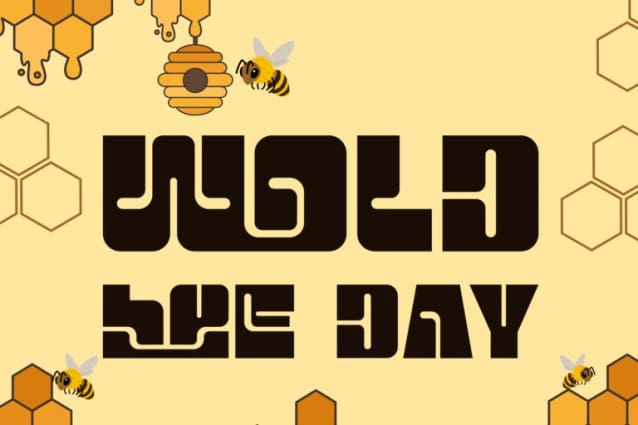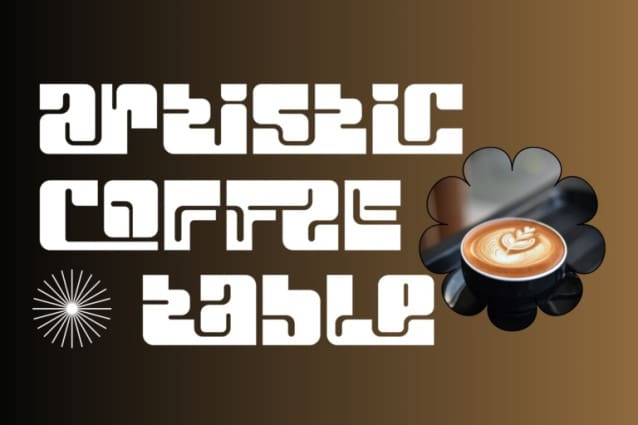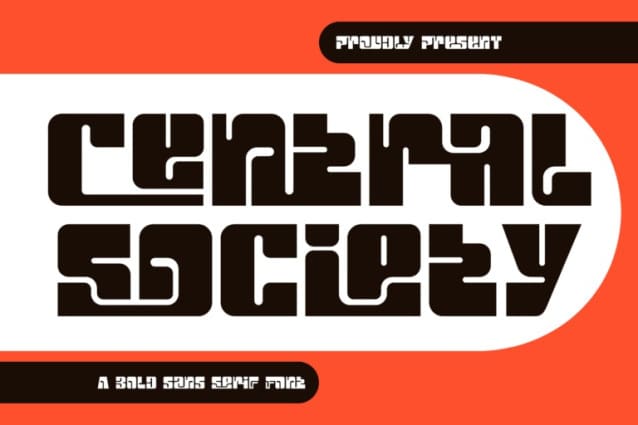
Central Society Font
Central Society Font – This playful and cheerful display font combines boldness with a condensed style, making it perfect for adding a touch of personality to your designs. Contains everything you need to create stunning typography – from headline fonts to body text fonts all in one place. Can be used for modern and vintage designs, and also can be easily paired with some graphic elements (illustration, photography) this font is perfect for, logotype, branding, title, and packaging.